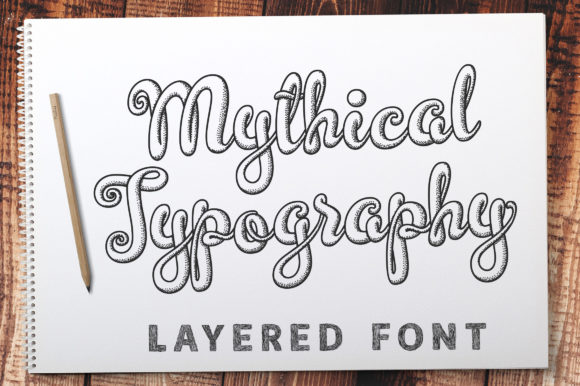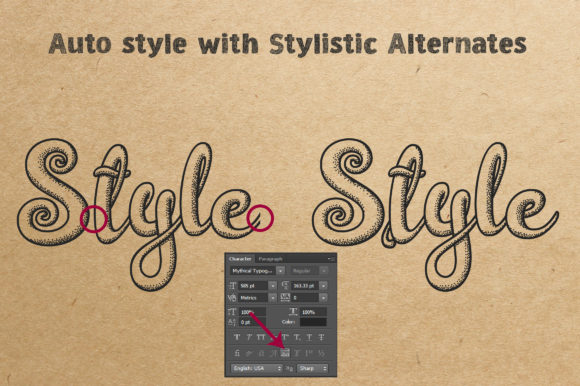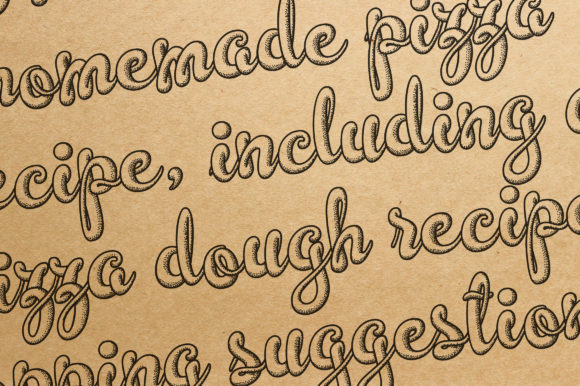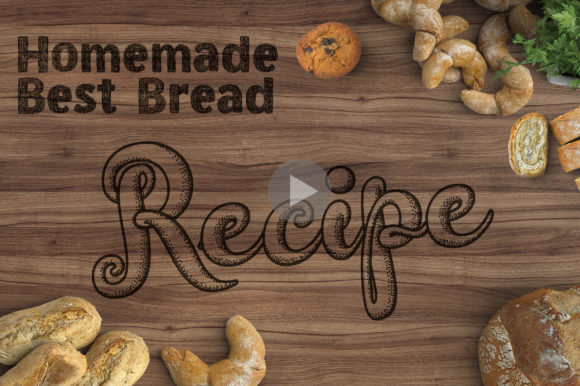
About Mythical Typography Font
Mythical Typography is a lovely and delicate script font that exudes elegance and class. This font was particularly crafted for those who need a beautiful and refreshing look to their designs.